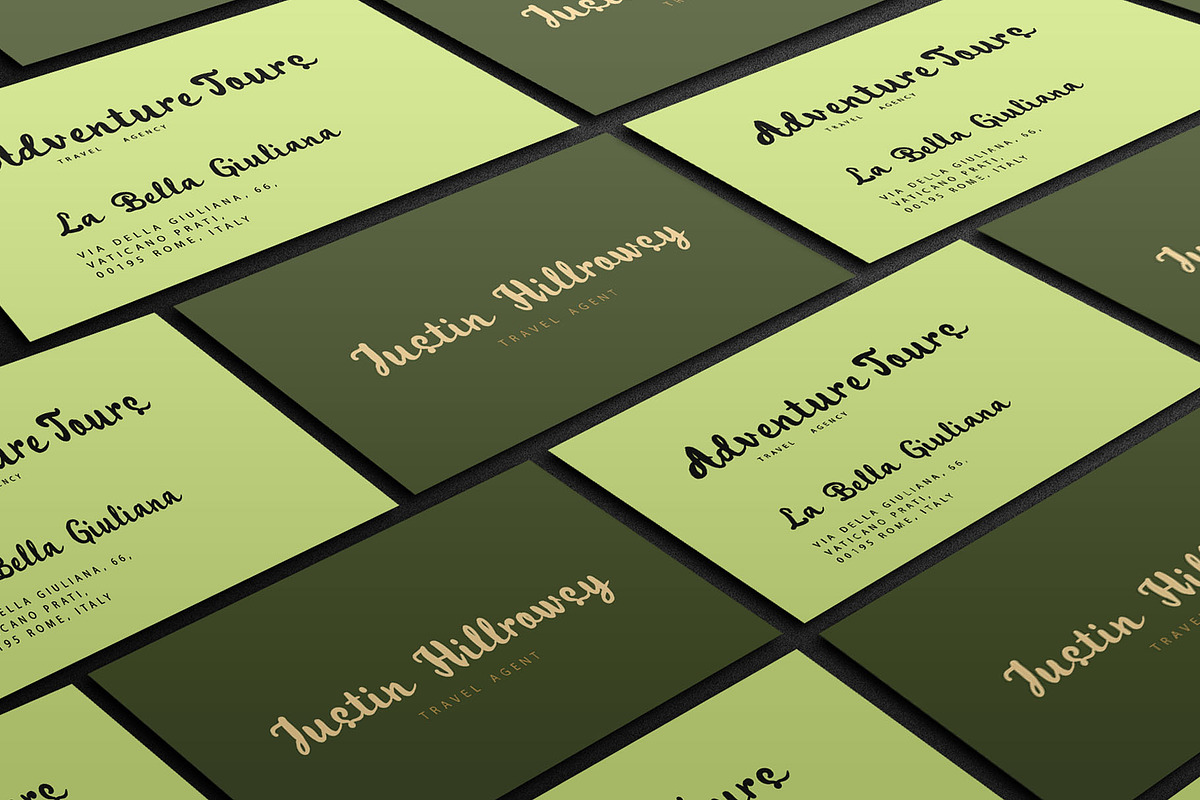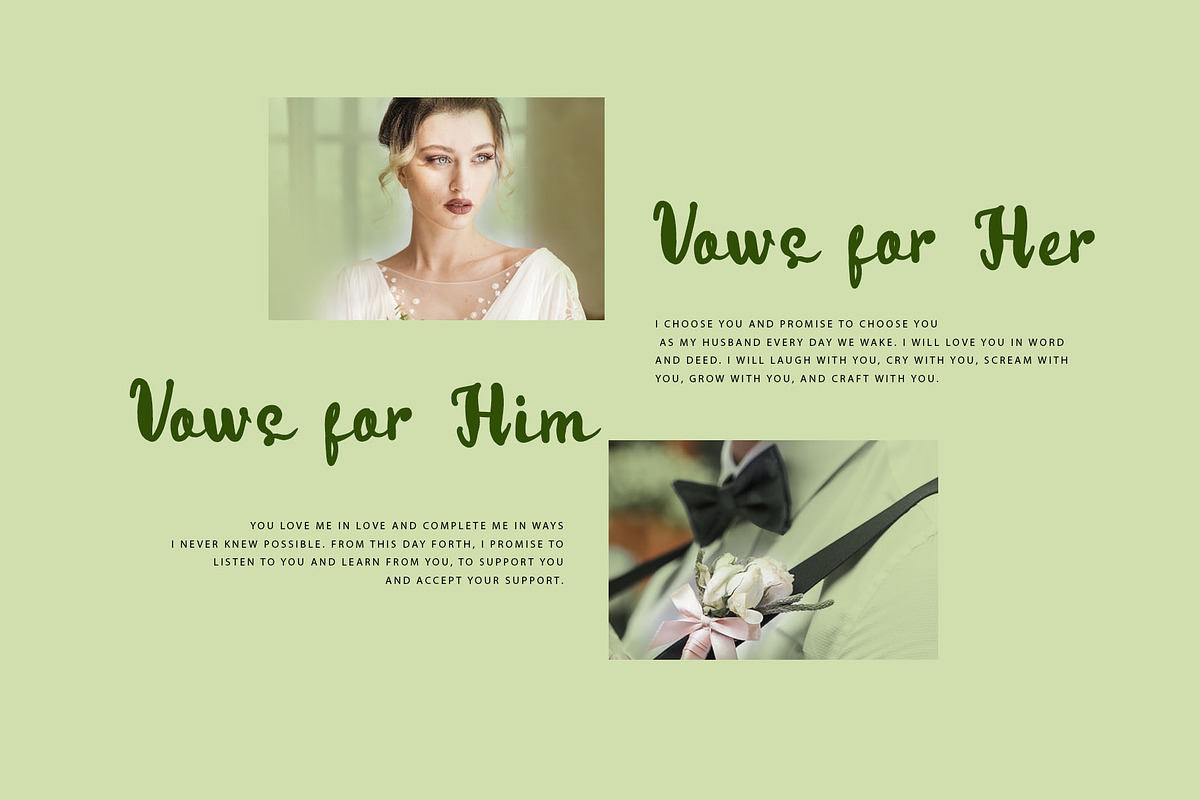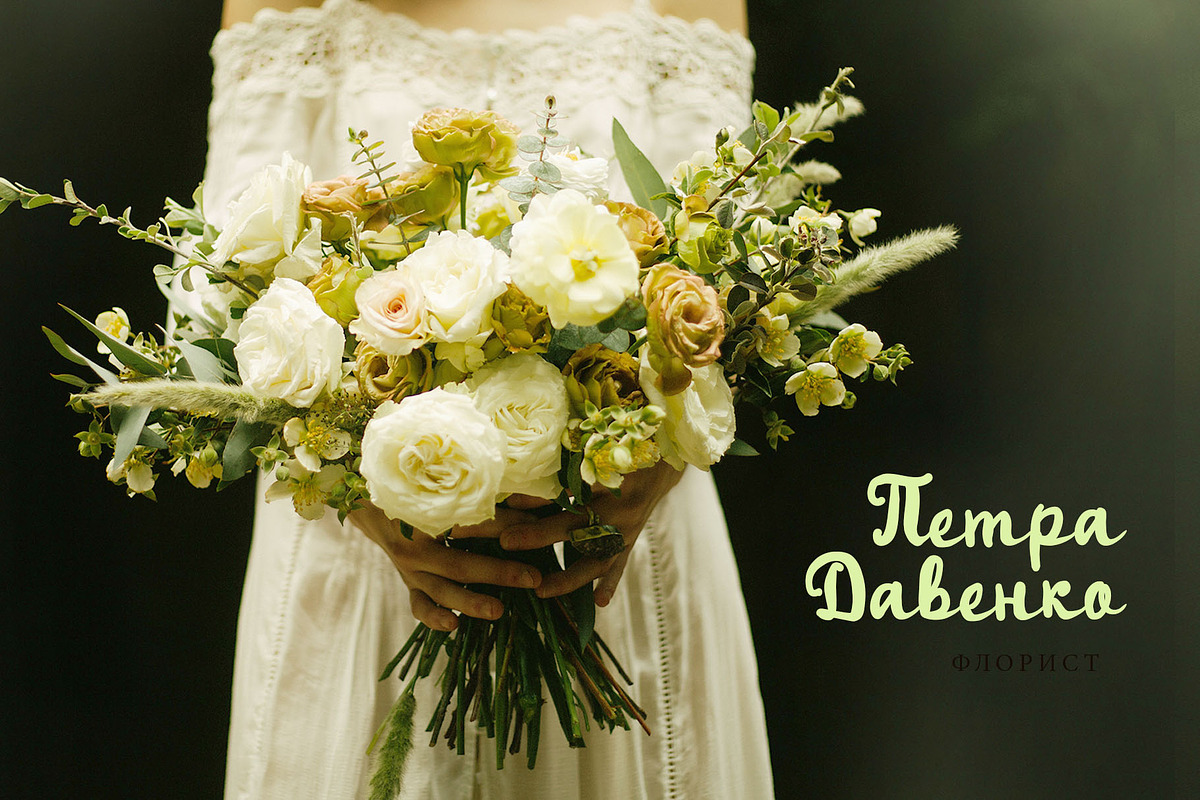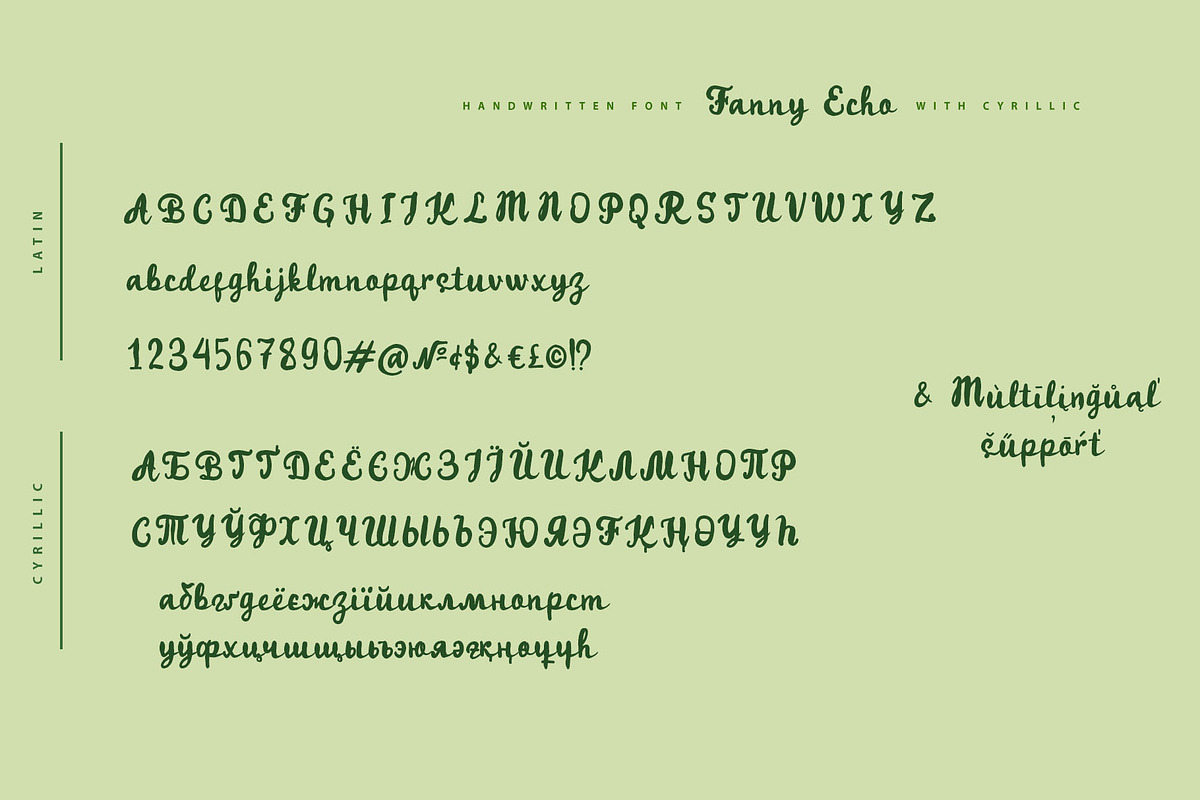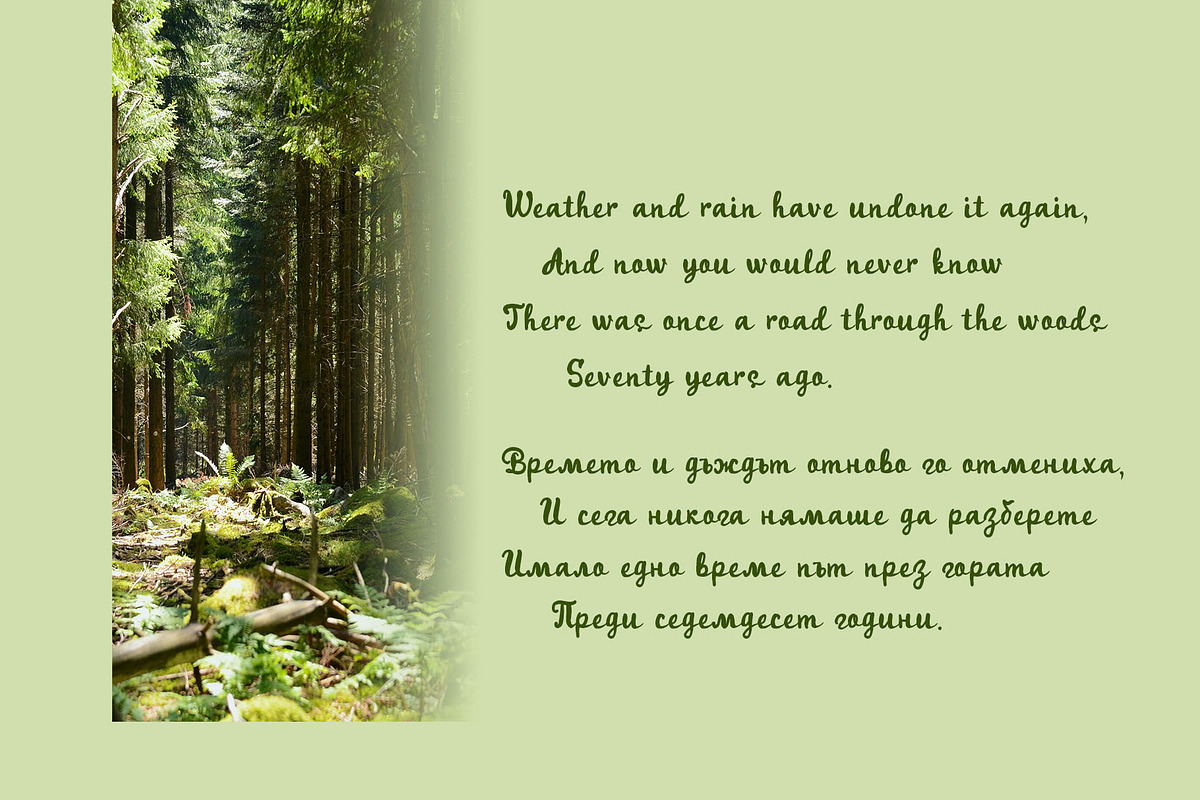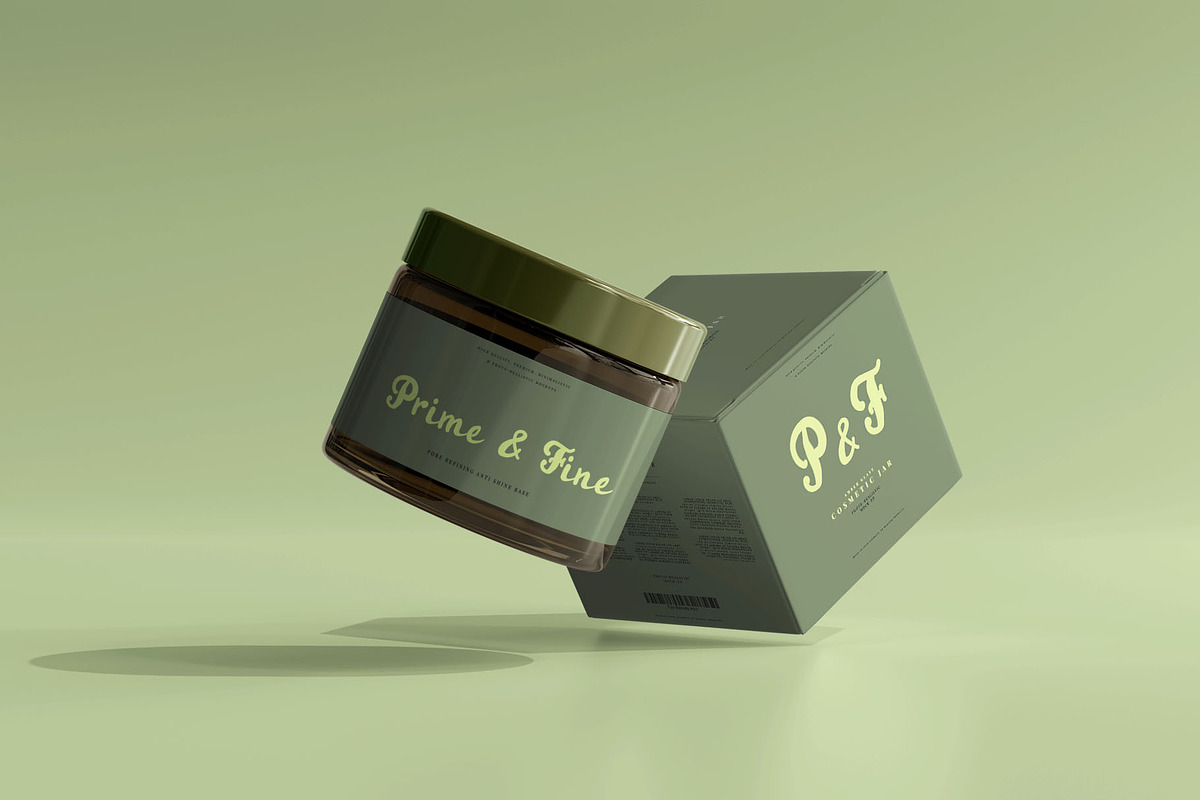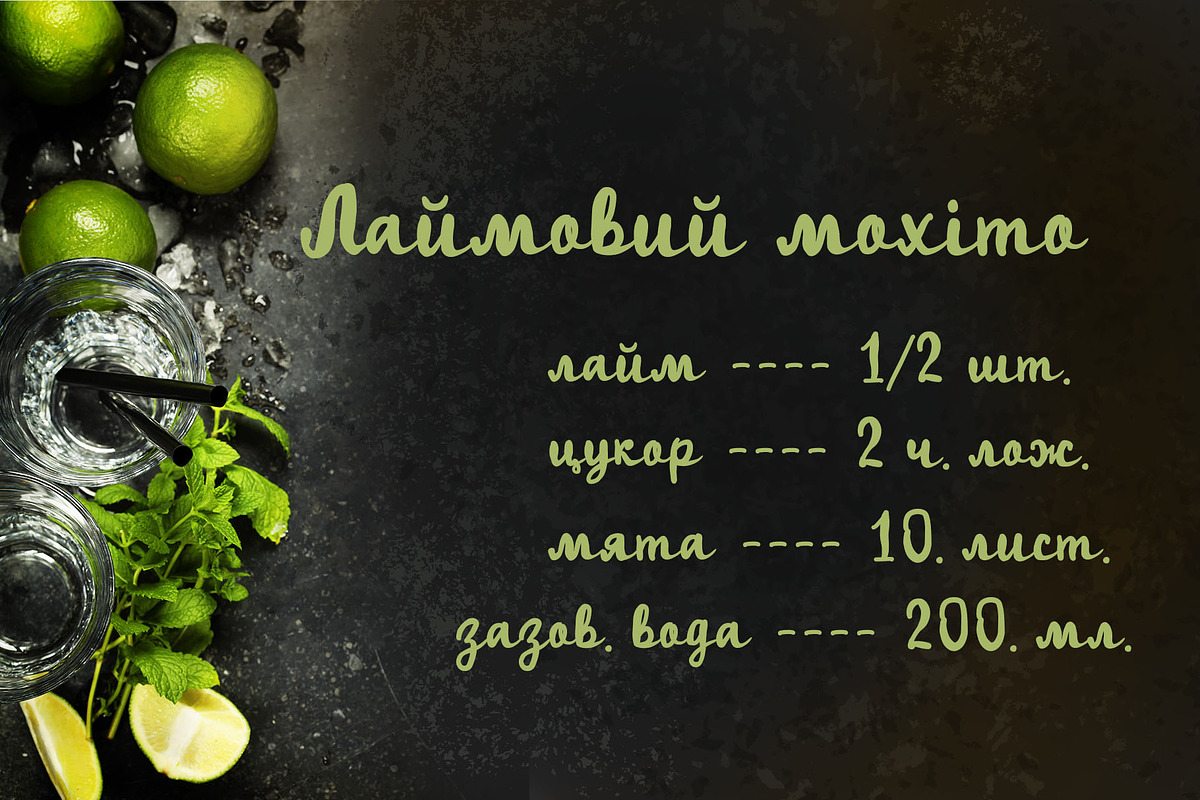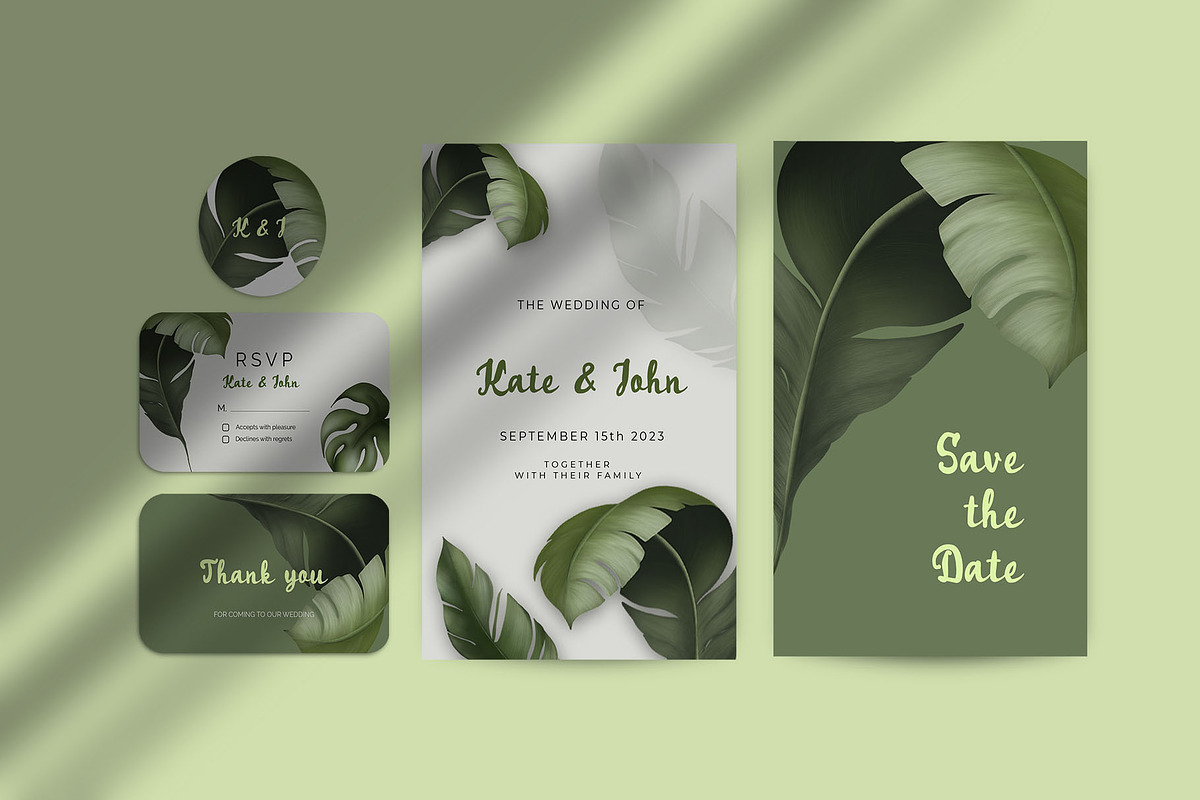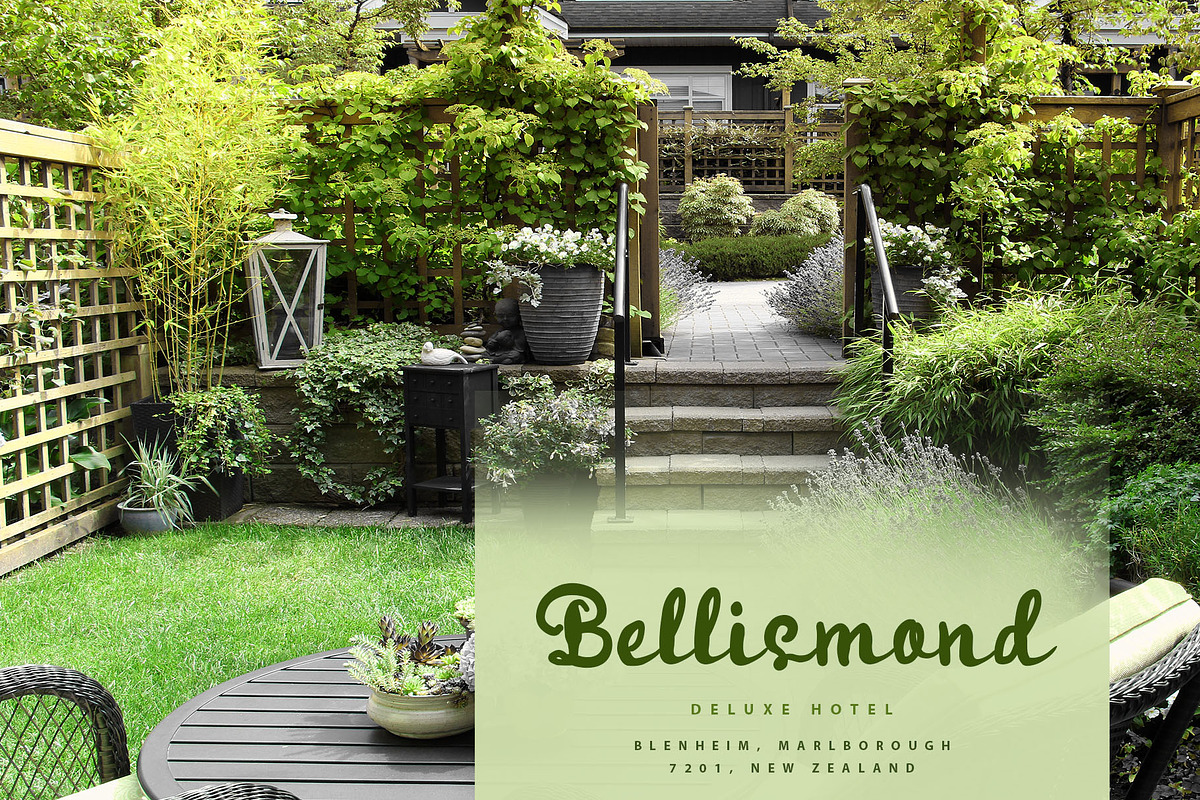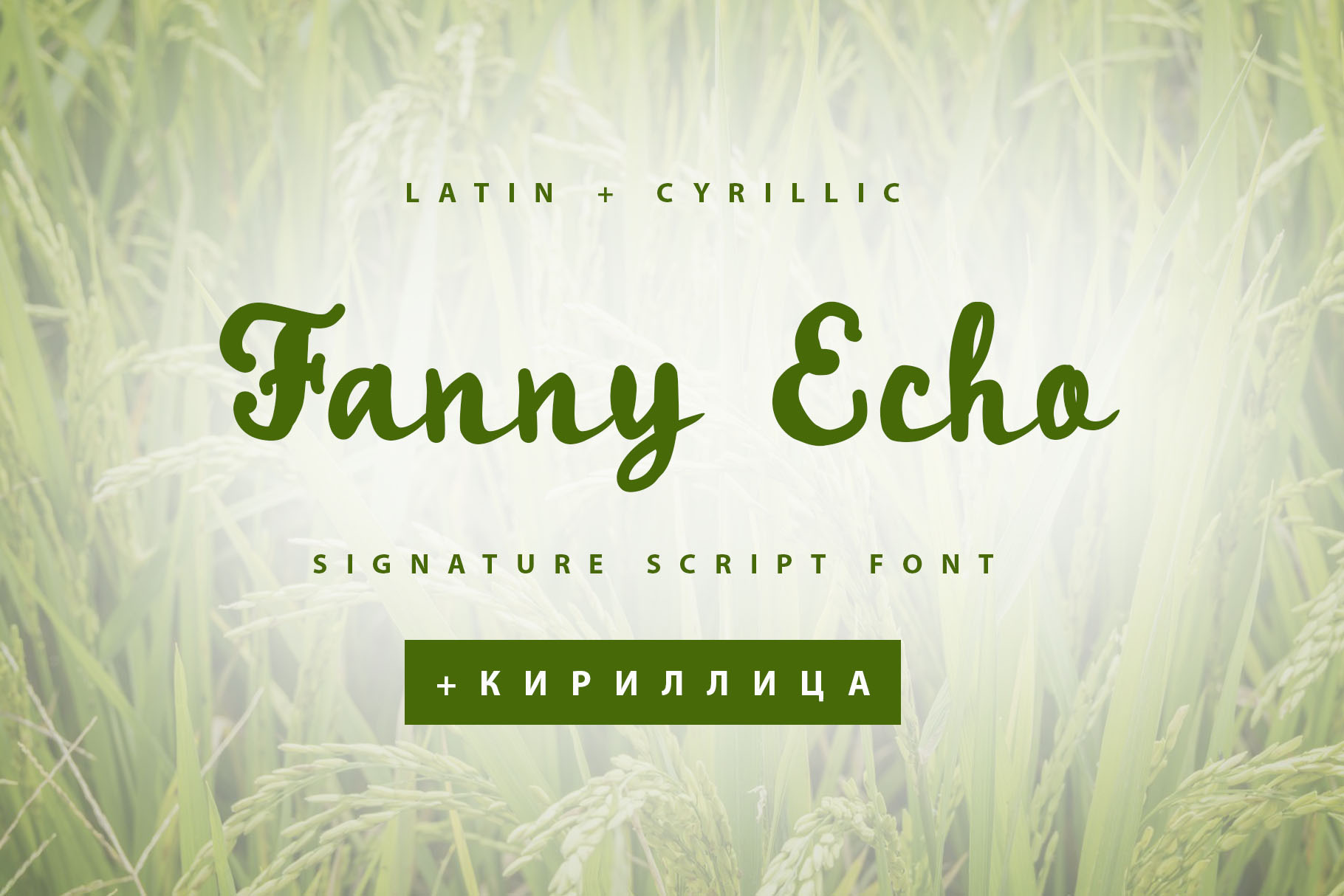
Fanny Echo Cyrillic Script font
Fanny Echo Cyrillic script font is a pretty brush pen bold font that will look gorgeous on all your designs, wedding stationery, love stories, branding materials, logos, pretty teenage stickers, business and wedding cards, calligraphy Insta quotes, elegant fashion sketches, calligraphy love monograms and much more.
Fanny Echo playful script font contains the Cyrillic glyphs too.
Multilingual Support for 31 languages: Latin glyphs for Afrikaans, Albanian, Basque, Bosnian, Catalan, Danish, Dutch, English, Estonian, Faroese, Filipino, Finnish, French, Galician, Indonesian, Irish, Italian, Malay, Norwegian Bokmål, Portuguese, Slovenian, Spanish, Swahili, Swedish, Turkish, Welsh, Zulu.
And Cyrillic glyphs support Ukrainian, Belorussian, Bulgarian, Russian Mongolian and Kazakh languages.